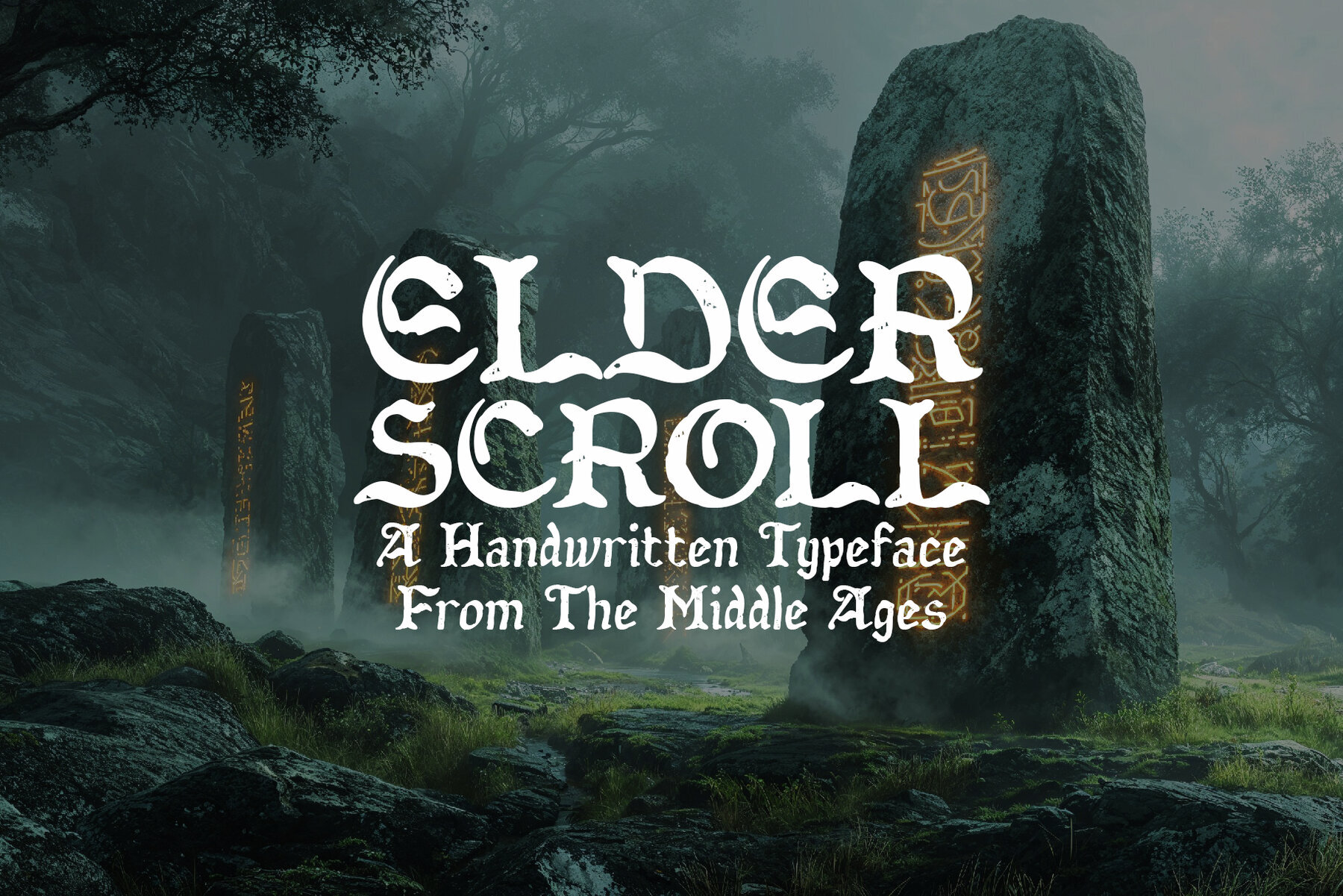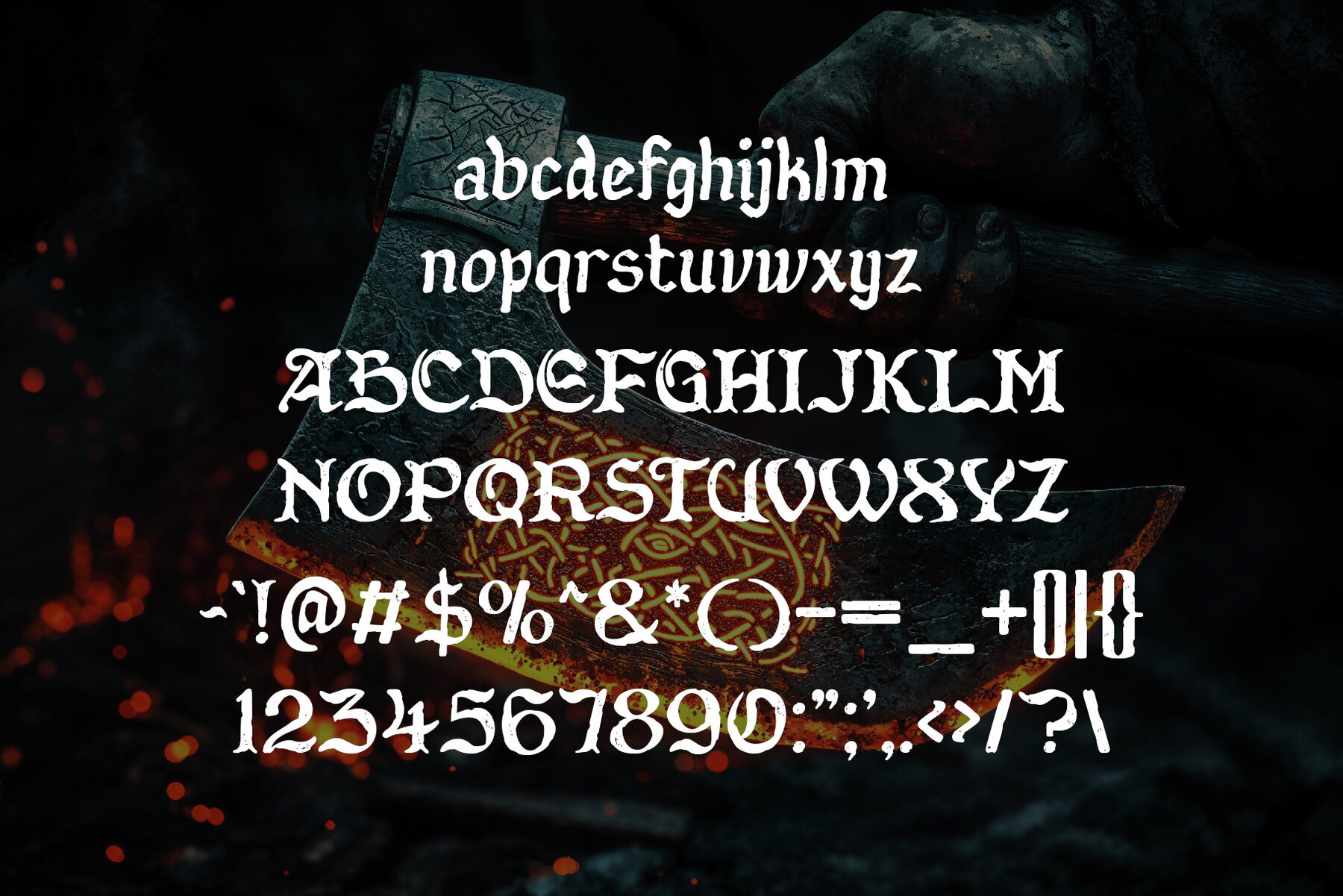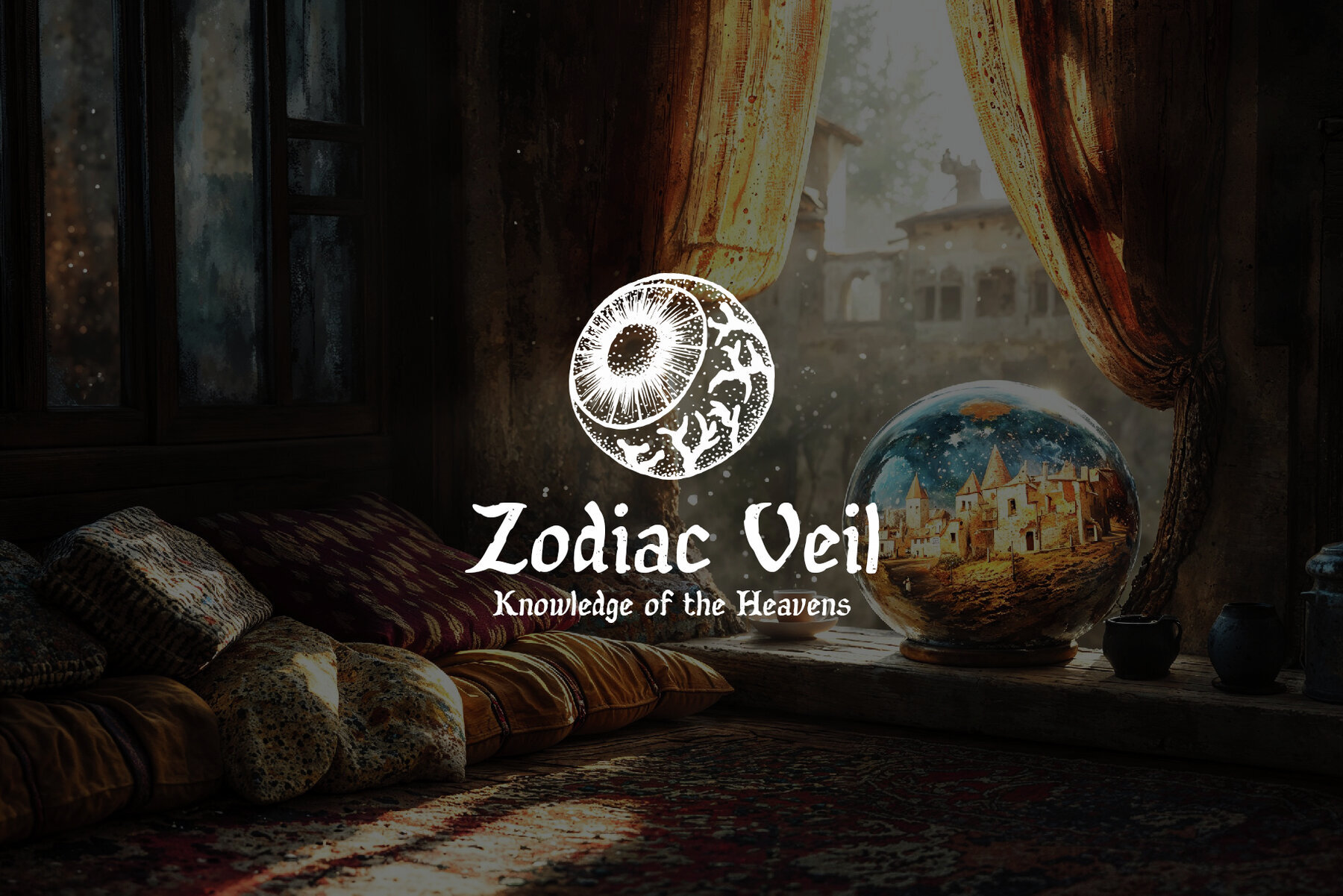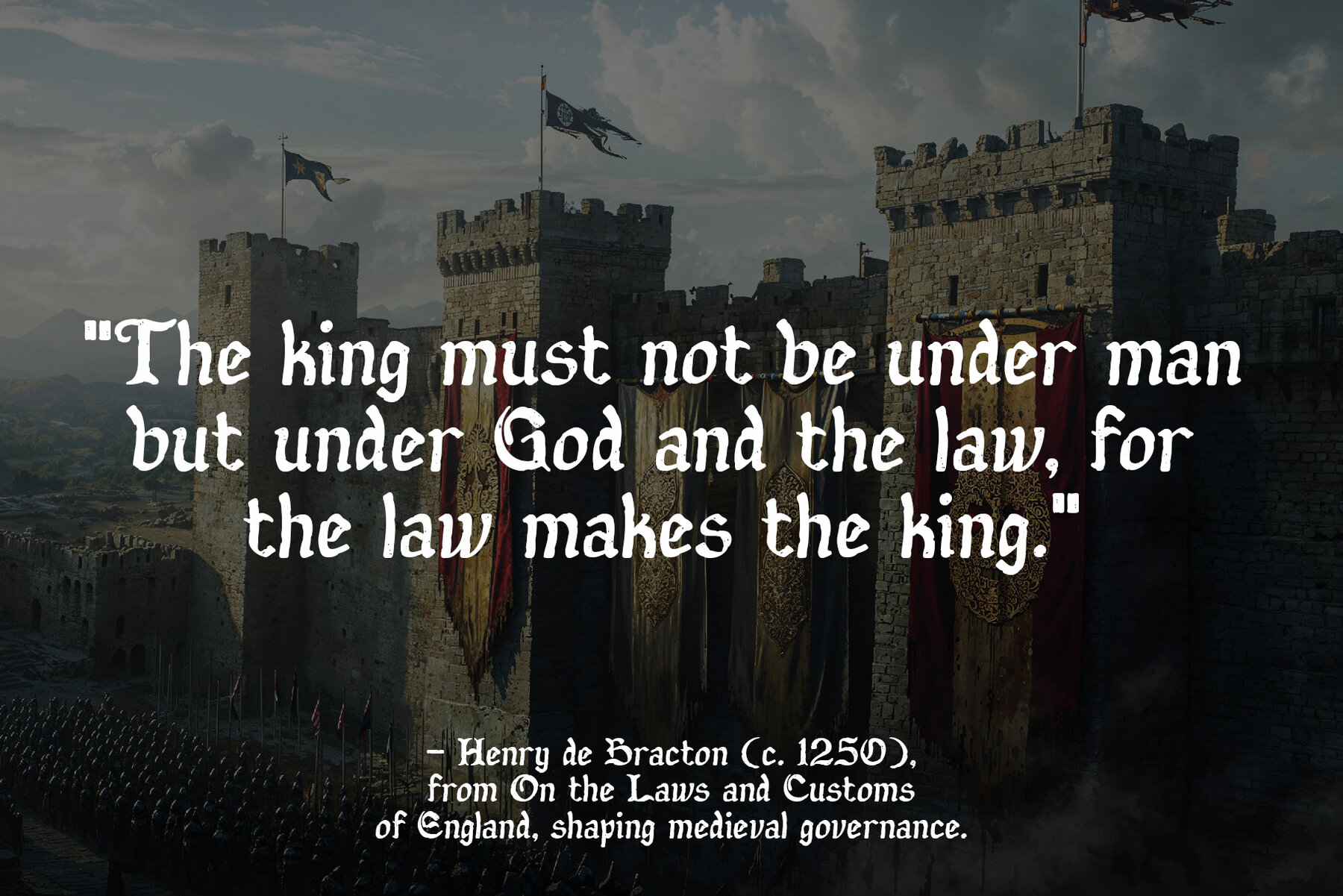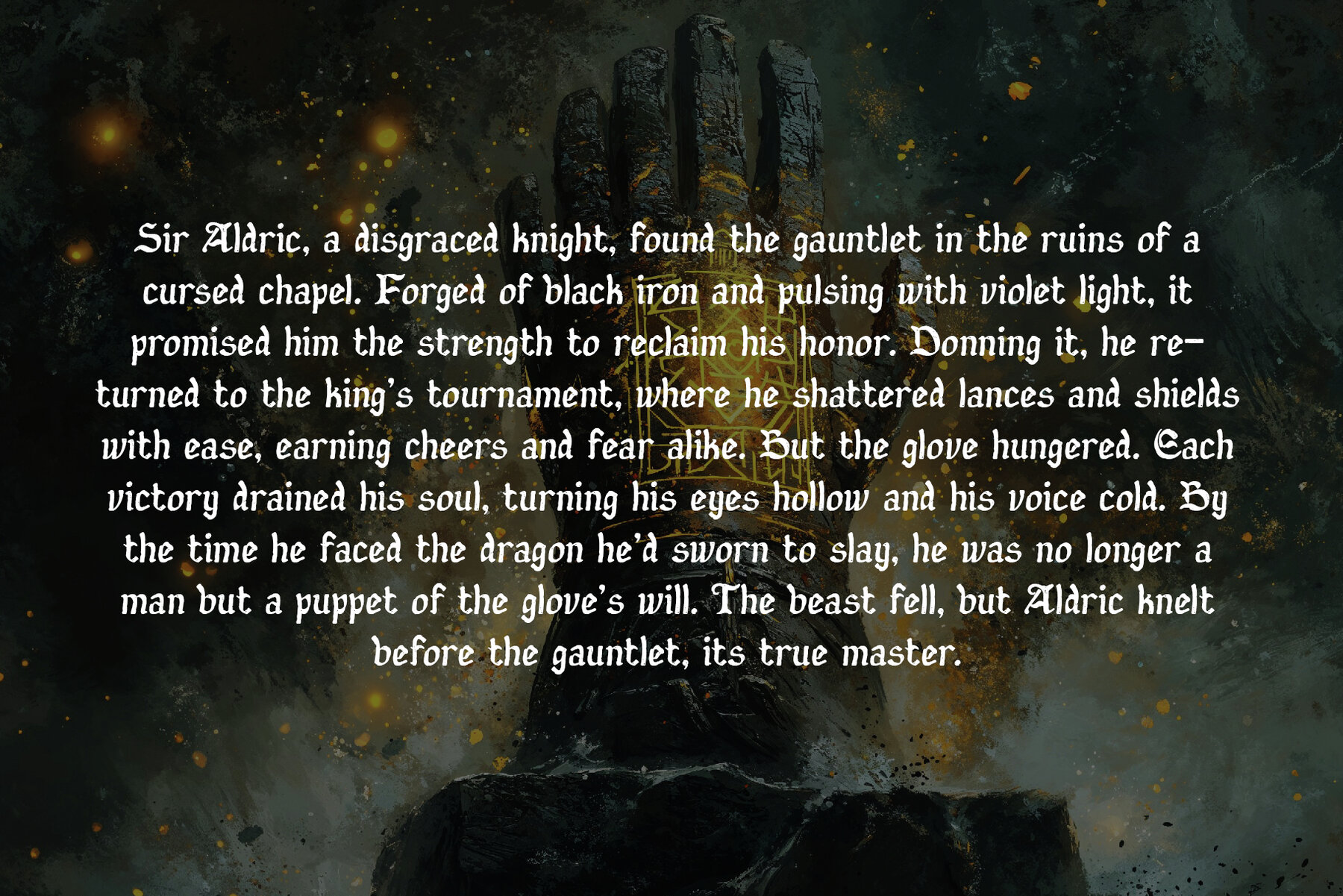
Elderscroll Font
Elderscroll
Step into a realm of forgotten tomes and legendary stories with the Elder Scroll typeface. Expertly designed to capture the essence of the Middle Ages, this handwritten font draws inspiration from the mystique of ancient manuscripts and weathered scrolls. Perfect for projects steeped in antiquity, medieval themes, Old English artistry, and fantasy narratives, Elder Scroll brings a touch of history to life. Each character feels like it was intricately inked by scribes of old, ready to chronicle the tales of kings and magic. Whether you are penning a fantasy novel, designing a royal decree, or infusing historical authenticity into your project, Elder Scroll will transport your audience to an era where lore and legend meet. Embrace the art of storytelling with a font that whispers ancient secrets.Elder Scroll Typeface